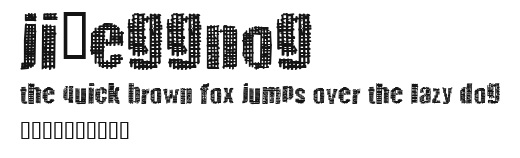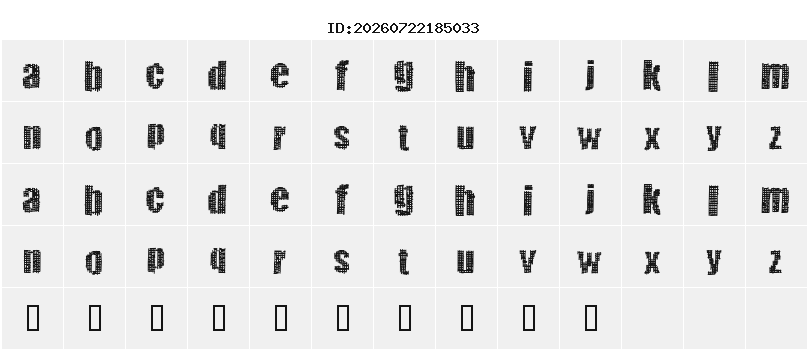
• Font Name: JI-Eggnog
• Full Font Name: JI-Eggnog
• Designer: JupiterImages
About JI-Eggnog.ttf
JI-Eggnog.ttf is a modern, elegant sans-serif font designed for ultimate readability and visual harmony. Perfect for branding, headlines, web design, and print materials.